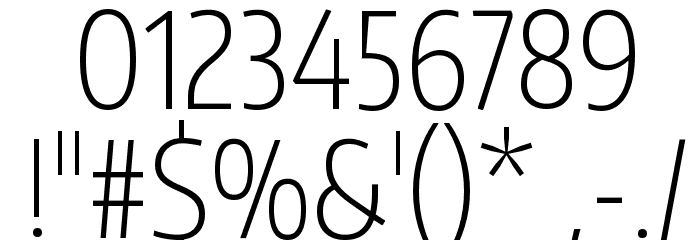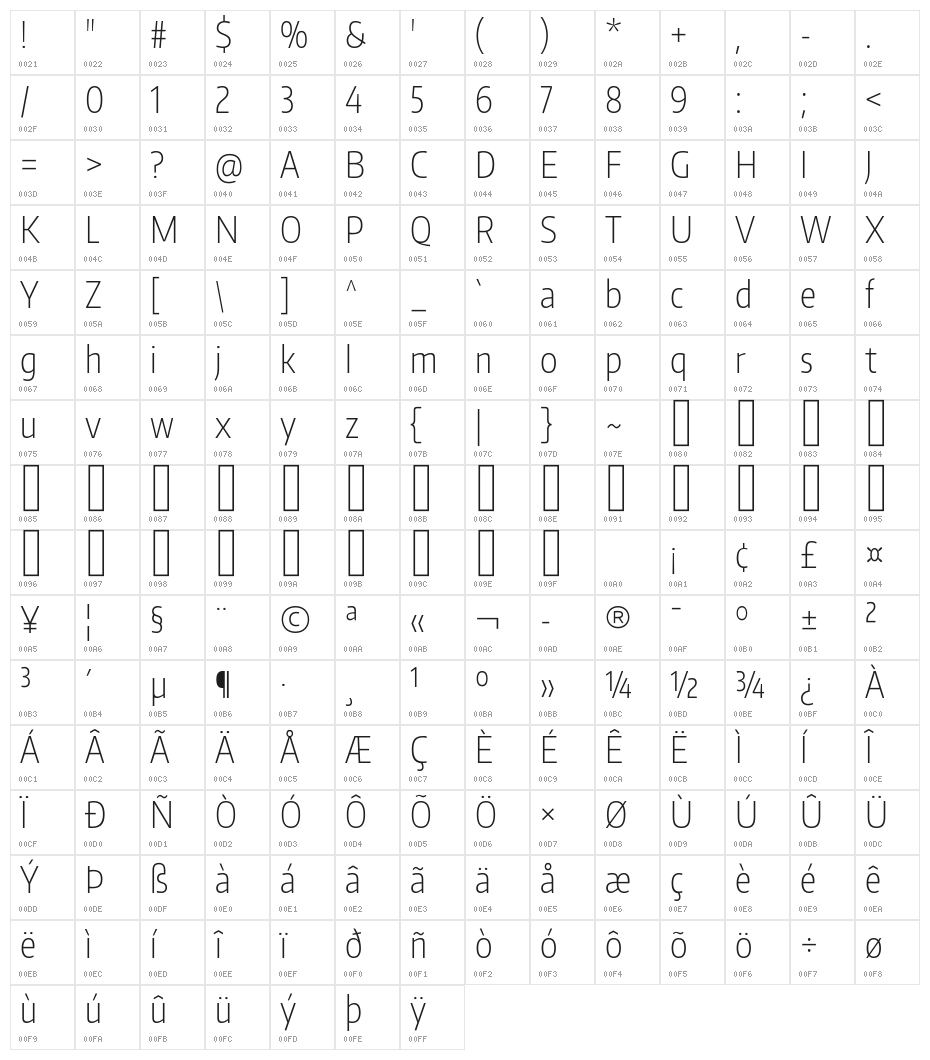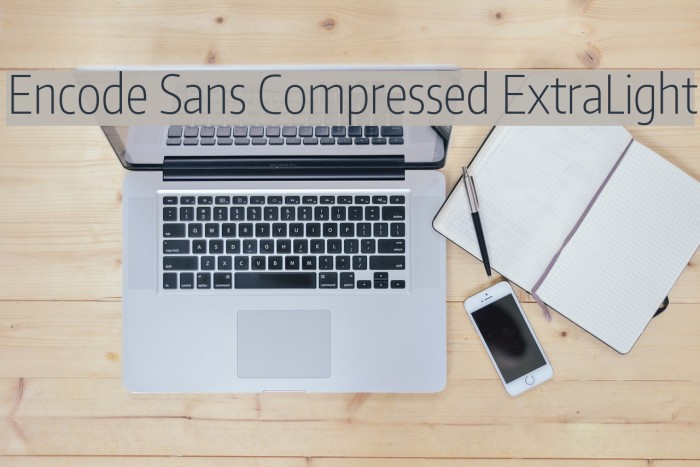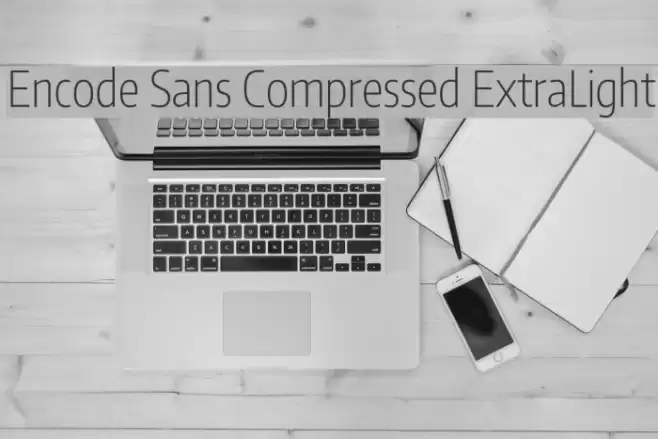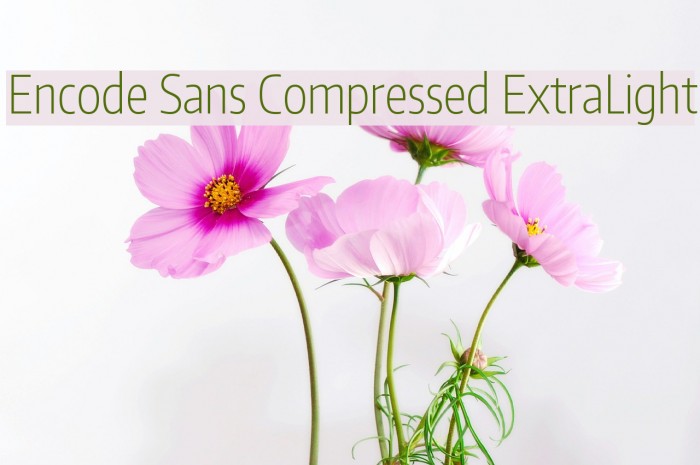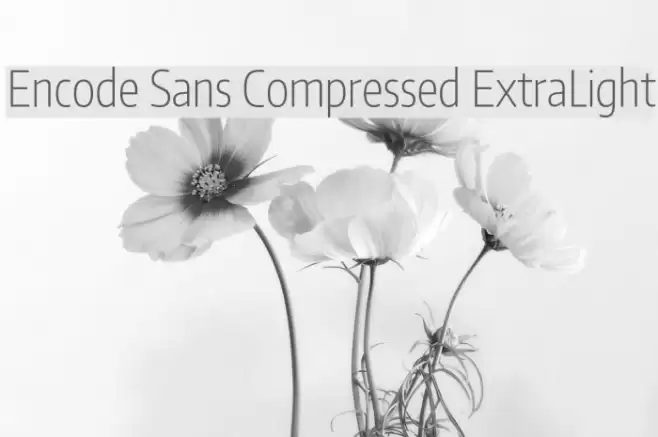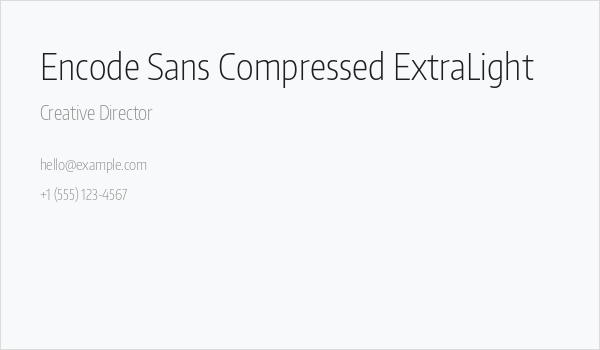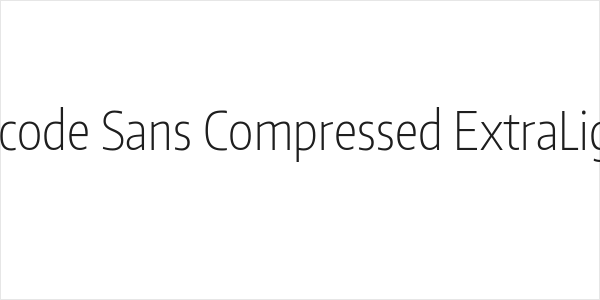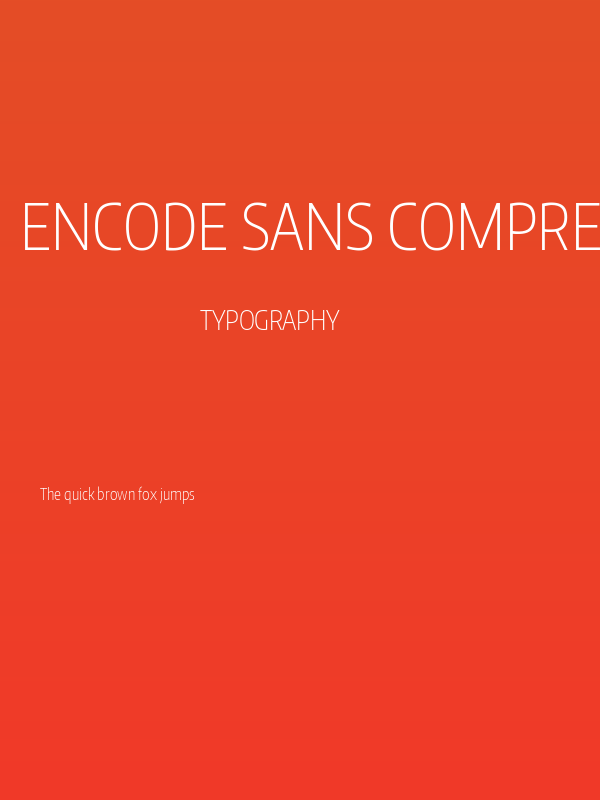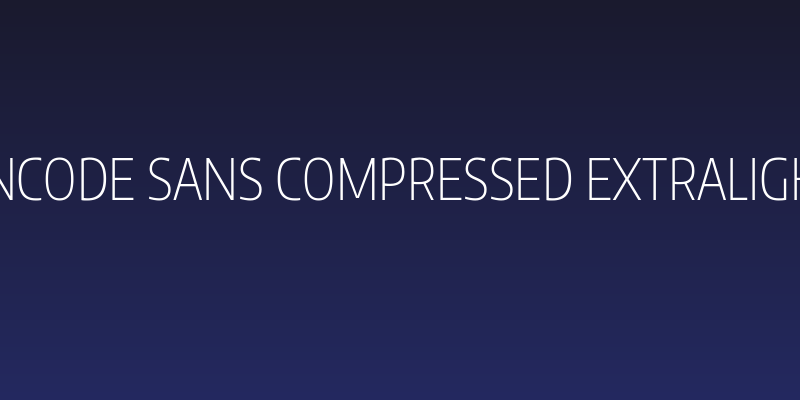
Encode Sans Compressed ExtraLight Font
Encode Sans Compressed ExtraLight Description
This typeface presents a clean and modern aesthetic with its sans-serif design. The characters are narrow and elongated, giving it a compressed appearance that is both sleek and efficient in space usage. The strokes are uniform and consistent, contributing to its extra light weight, which makes it ideal for minimalist designs. The font maintains excellent legibility despite its thin strokes, making it suitable for both digital and print media. Its simplicity and clarity make it versatile for various applications, from branding to user interfaces.
Use CaseHeadlines, Body text, Logos
Proposed ProjectsPerfect for branding, web design, app interfaces, and minimalist print materials.